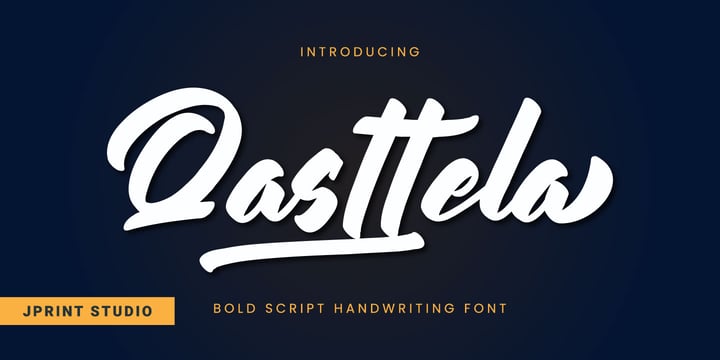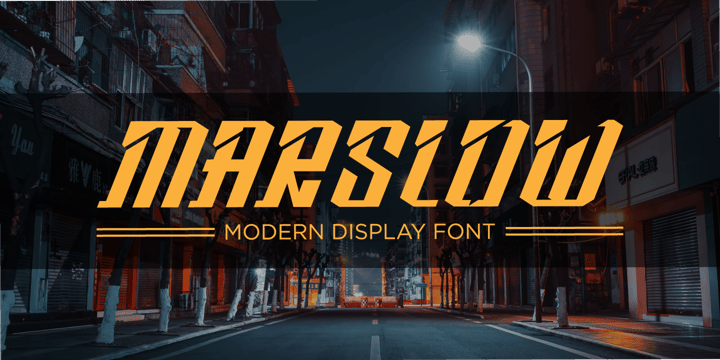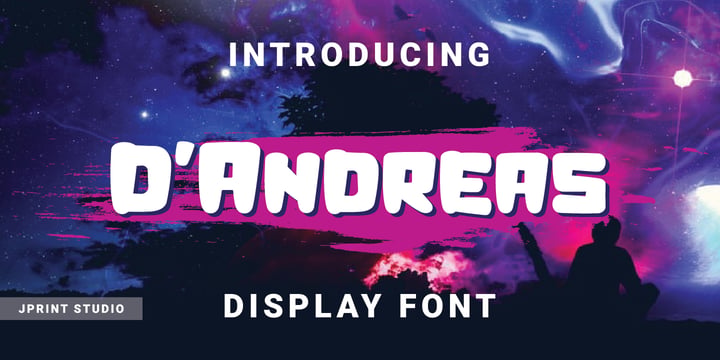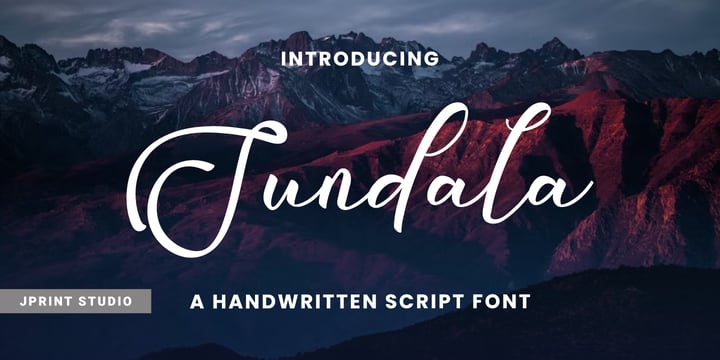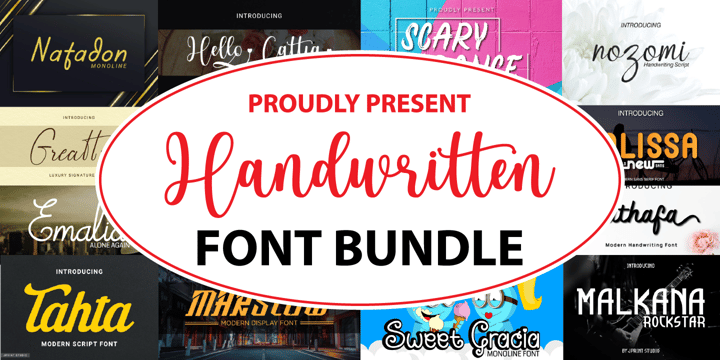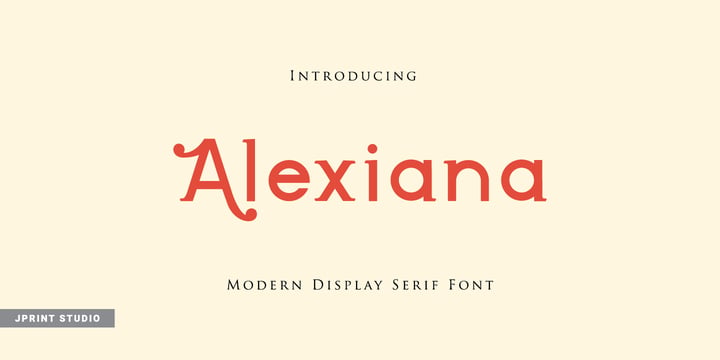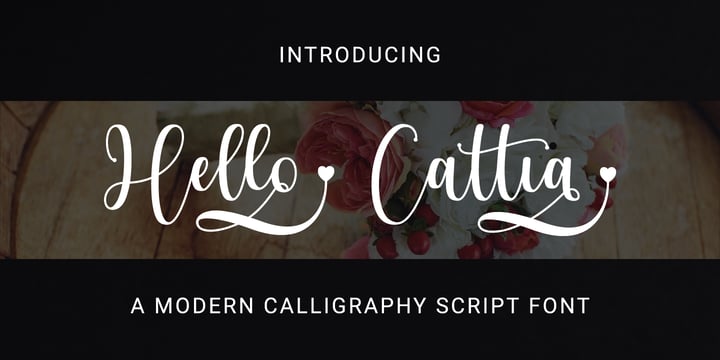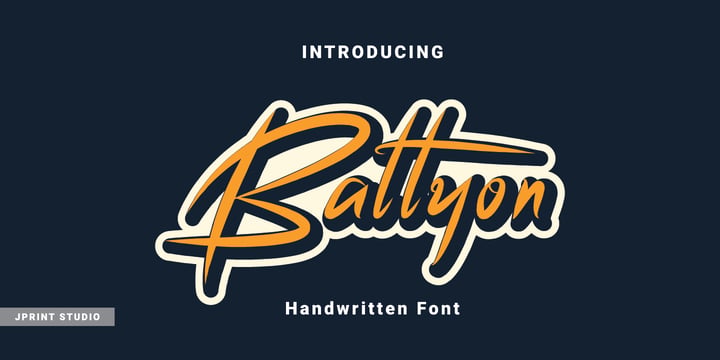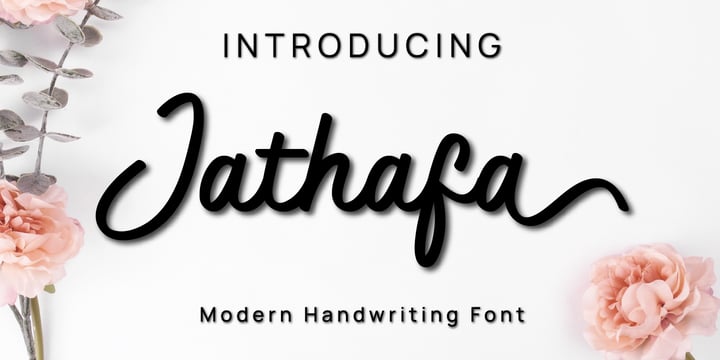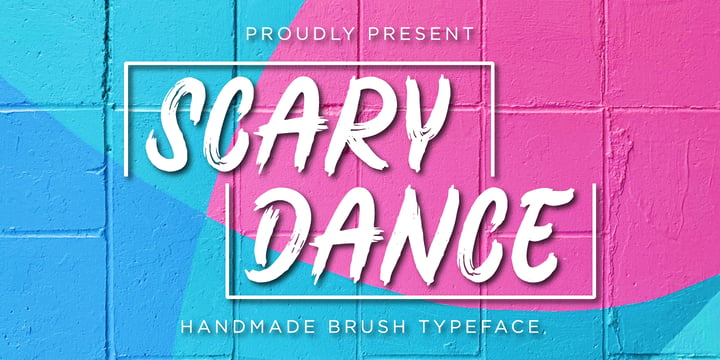
The Handwritten Fonts Collection Bundle Vol 2
The Handwriting Fonts Collection Bundle is an exclusive collection of handwritten typefaces that blend casual and personal style. Each font is designed to create a warm and inviting feel—for both formal and casual projects.
🎨 Suitable for:
Branding & business logos
Invitations & stationery
Handmade product packaging
Posters, quotes, & social media designs